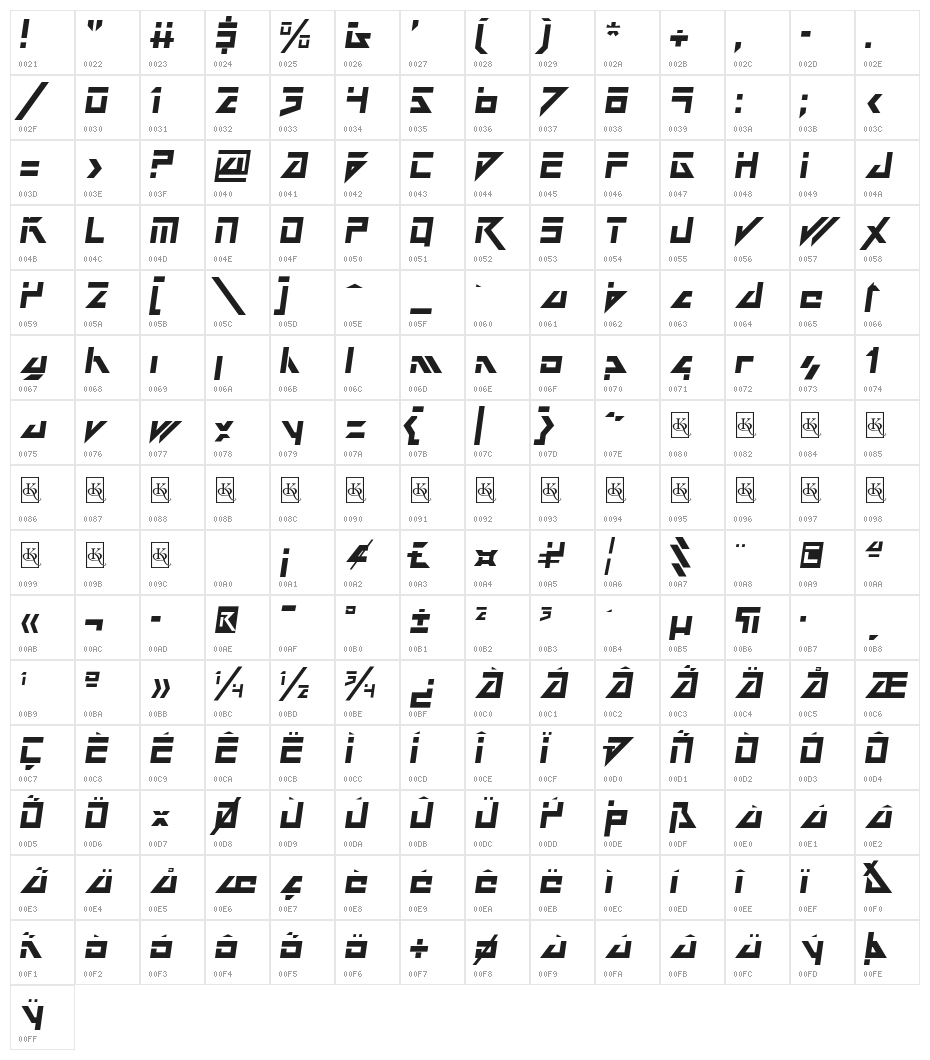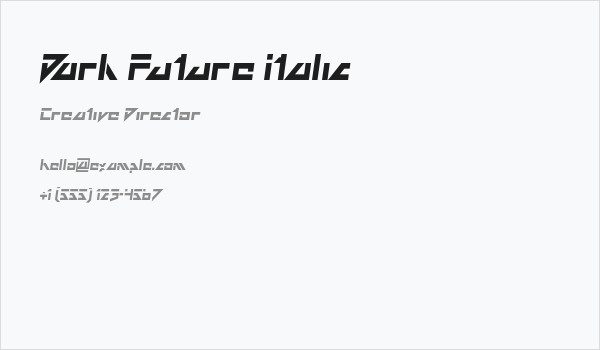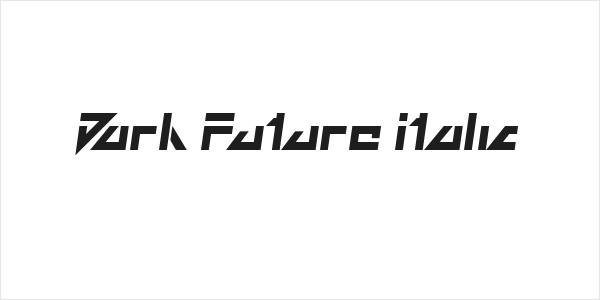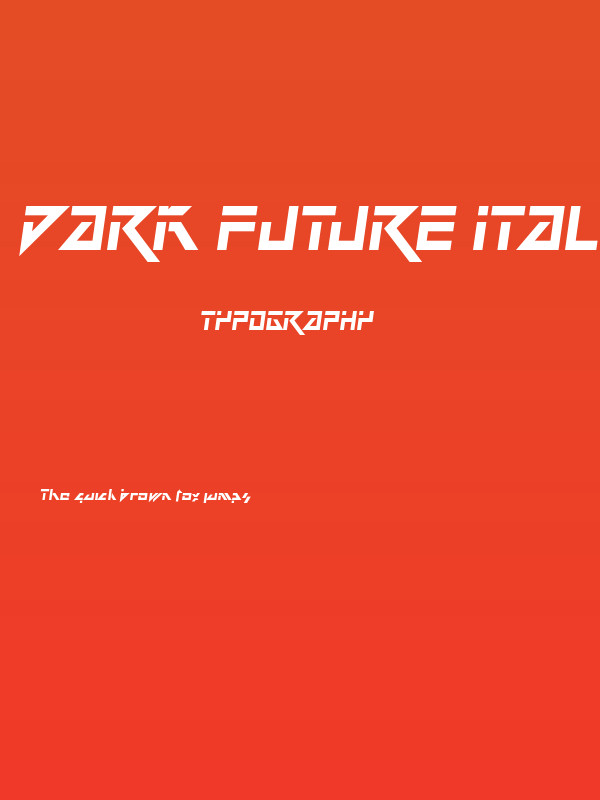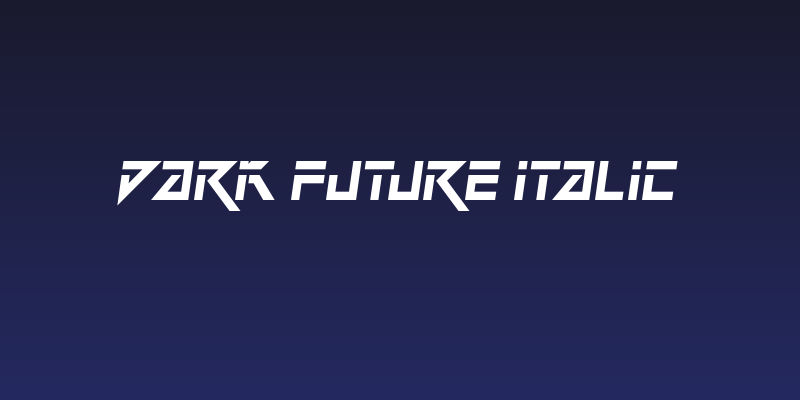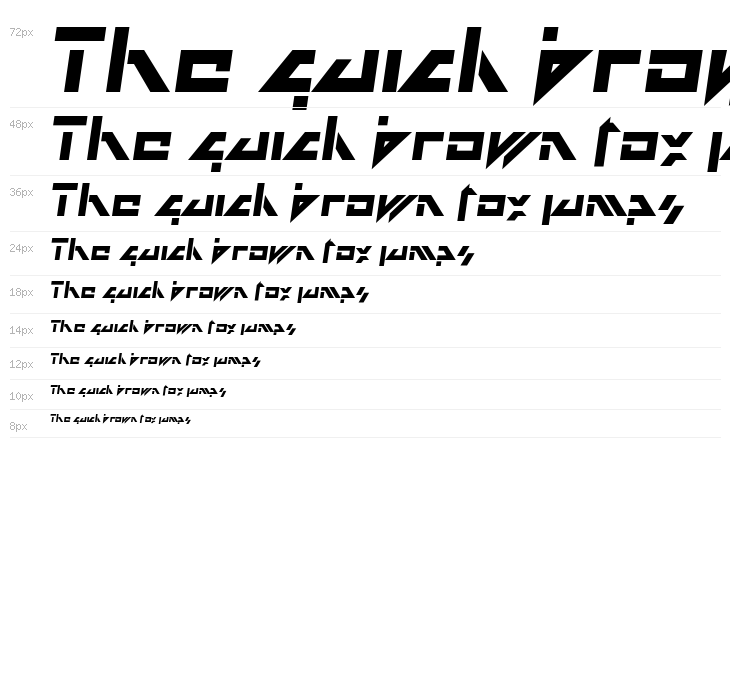
Dark Future Italic Font
Dark Future Italic Description
This font features a futuristic and angular design, characterized by sharp edges and bold geometric shapes. The letters are italicized, giving a sense of motion and speed. The uppercase and lowercase letters maintain a consistent style, with a strong emphasis on diagonal lines and pointed corners. The numbers and special characters follow the same aesthetic, ensuring uniformity across all glyphs. This font's unique style makes it stand out, ideal for projects that require a modern and edgy look.
| Proposed Projects | Ideal for sci-fi themed designs, video game titles, tech branding, and futuristic posters. |